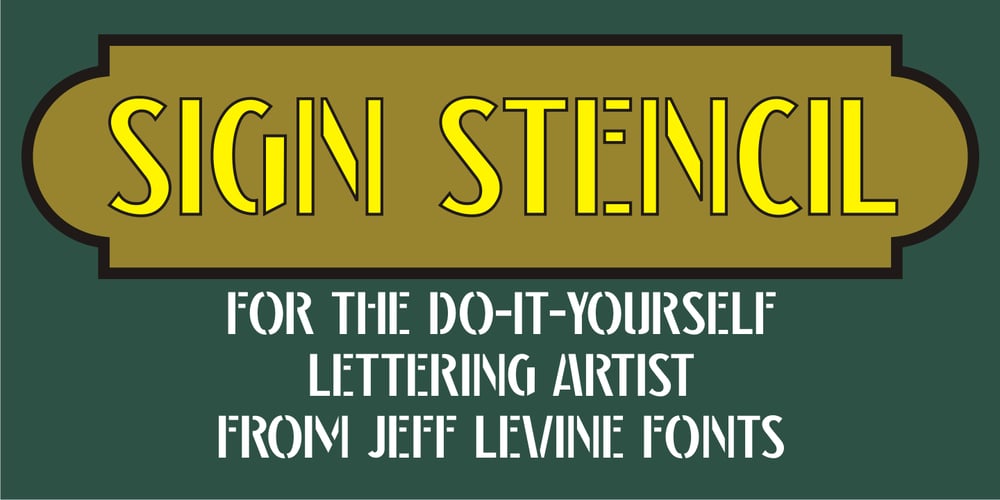
Sign Stencil JNL Font Family was designed by Jeff Levine and published by Jeff Levine. Sign Stencil JNL contains 1 styles and family package options. Sign Stencil JNL was modeled from some vintage lettering stencils spotted in an online auction that were part of a store sign making kit. A variety of styles, sizes and designs were contained within a carrying case along with paints, brushes and instructions on how to paint attractive signs.